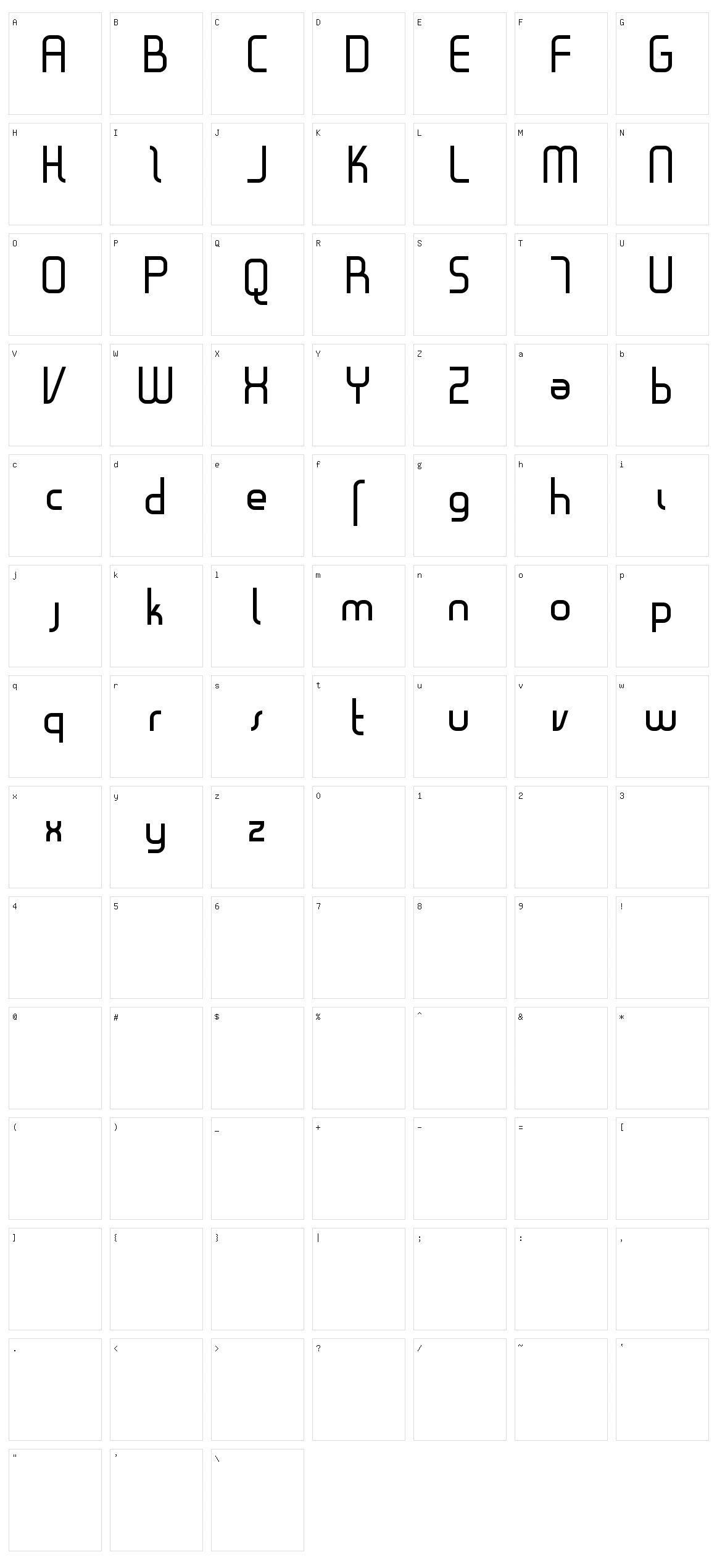
The free font Gestalt is carefully designed by Thomas Field, showcasing a thoughtful balance of creativity and usability and falls under the Sans serif font style. When you download the ZIP file, it contains only 11.82 KB of font files, making it lightweight and quick to download. Please review the license details below to understand permitted usage and distribution rights. If license information is not available, we recommend using this font for personal projects only or contacting the author directly for commercial usage permissions.